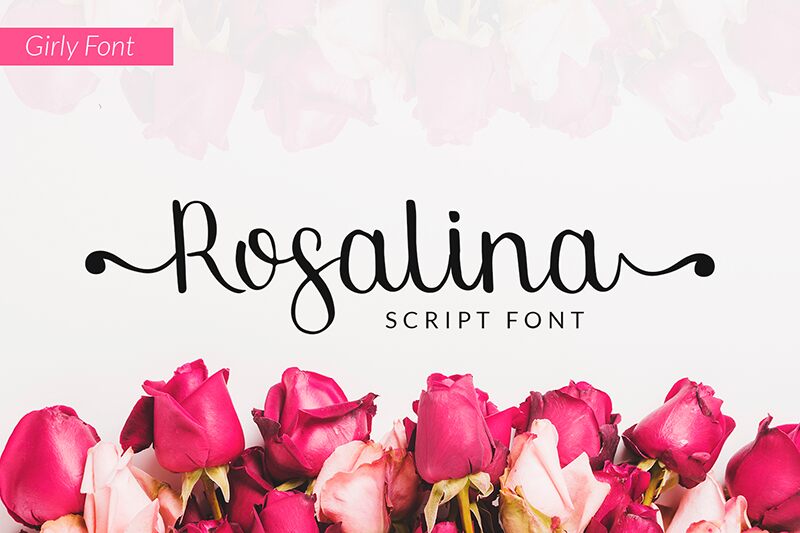
Rosalina
Rosalina - a brush script font created with a medium thickness pen brush that will make your design look more beautiful and soft.
Rosalina - will be perfect for magazines, business cards, invitations, packaging, tshirt, and all designs that require beautiful and soft elements.
- Ligature
- Swash